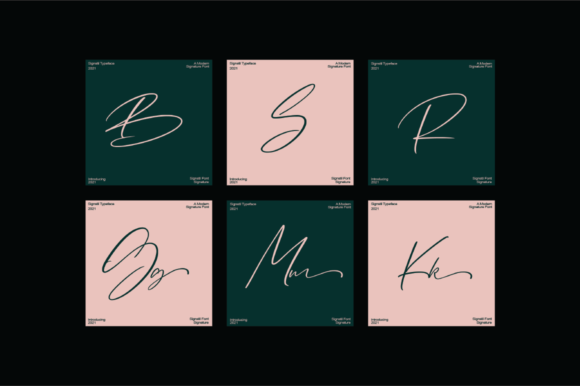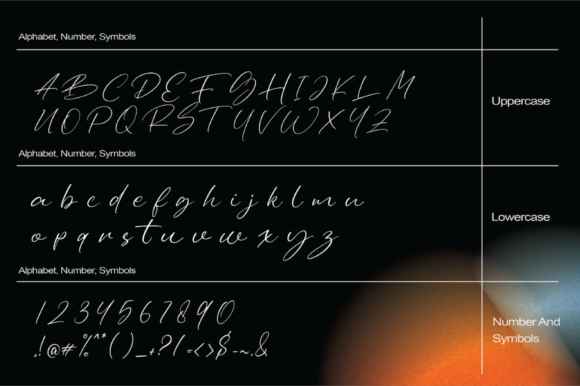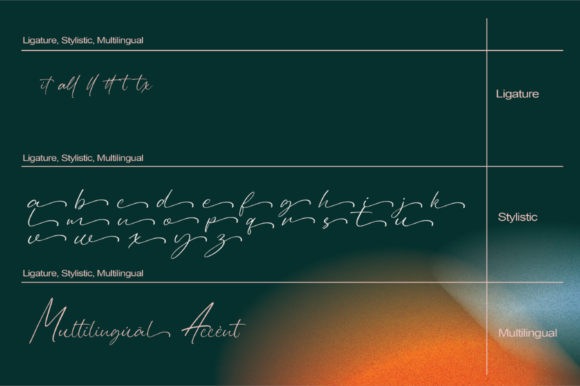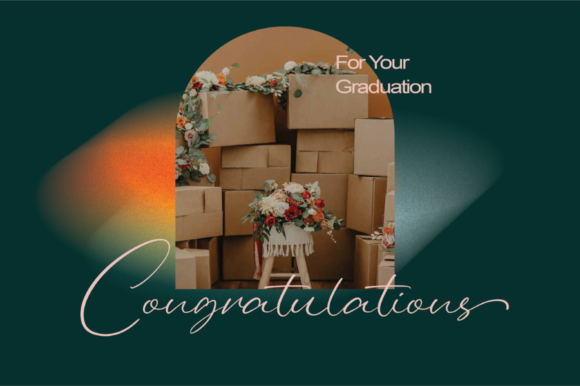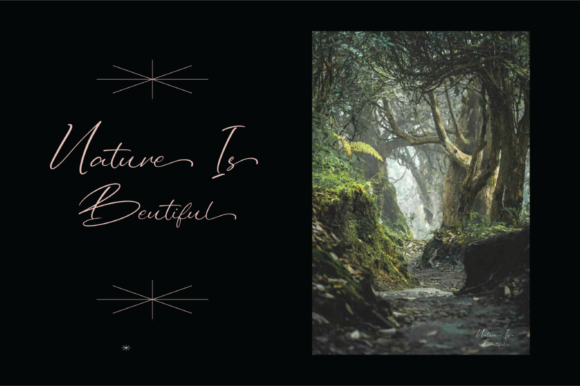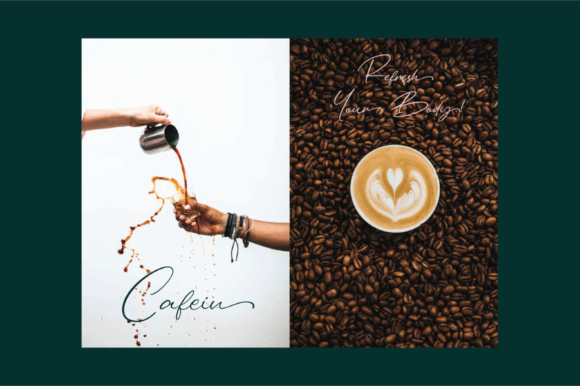
Introduction to Sigustil Font
Sigustil is an exquisite handwritten font, masterfully designed to become a true favorite.
It maintains its classy calligraphic influences while feeling contemporary and fresh Sigustil is PUA encoded which means you can access all of the glyphs and swashes with ease.
Sigustil Font offers exceptional quality and versatility, making it a valuable addition to your design toolkit. Whether you’re creating for personal projects or commercial use, Sigustil Font delivers professional results.